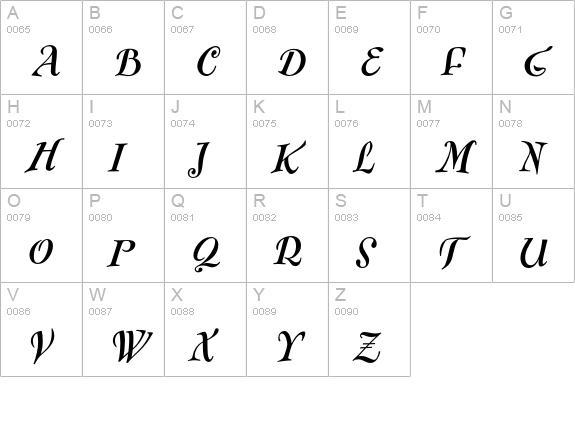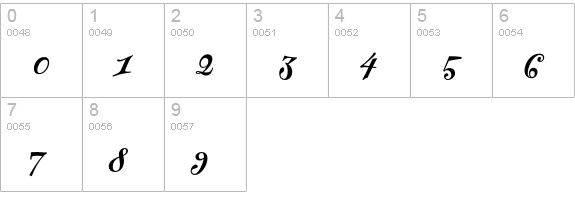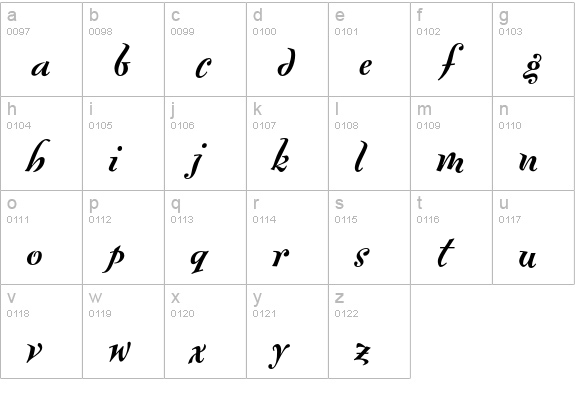
FontesqueText-BoldItalic is a modern and stylish typeface that exudes sophistication and elegance. With its bold and italic design, this font is perfect for creating eye-catching headlines and titles that demand attention. The sleek curves and sharp angles of FontesqueText-BoldItalic give it a unique and distinctive look that is sure to make your designs stand out. What's even better is that FontesqueText-BoldItalic is available for free download at FontsMarket.com. This means you can easily access this stunning font and use it in your projects without any cost. Whether you're working on a branding project, a poster design, or any other creative endeavor, FontesqueText-BoldItalic is a versatile choice that will elevate your work to the next level. Don't miss out on the opportunity to enhance your designs with the elegance and flair of FontesqueText-BoldItalic. Download it for free today at FontsMarket.com and let your creativity shine!